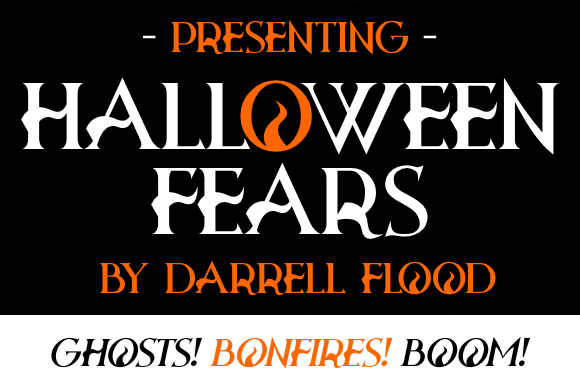
**Introducing Halloween Fears: The Spine-Tingling Serif That'll Haunt Your Designs**
Unleash a touch of the macabre into your creative projects with Halloween Fears, an exquisite serif font that oozes both elegance and eerie charm. This captivating typeface transports you back to the days of haunted mansions and candlelit rituals, effortlessly evoking the spirit of the season.
Crafted with meticulous precision, Halloween Fears boasts an intricate web of serifs that dance across your screen like delicate spiderwebs. Its bold strokes and exaggerated curves create an undeniable presence, perfect for capturing attention and leaving a lasting impression. Whether you're creating spine-chilling posters, haunting invitations, or simply adding a touch of the supernatural to your designs, Halloween Fears will cast an unforgettable spell on your audience.
Beyond its undeniable aesthetic appeal, Halloween Fears is also remarkably versatile. Its serifed nature lends an air of sophistication to any project, while its playful spirit keeps it from becoming overly serious. Whether you're designing for a Halloween-themed event, a horror-inspired website, or simply adding a touch of spooky flair to your everyday creations, Halloween Fears seamlessly adapts to match your vision.
Immerse yourself in the enchanting world of Halloween Fears, where imagination knows no bounds. Let this haunting serif be your guide into a realm of darkness and delight, where your designs will take on a life of their own.